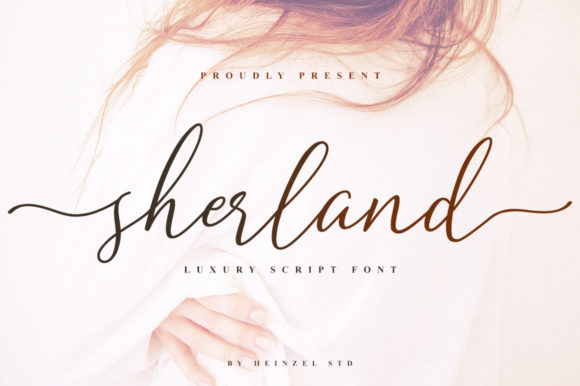
Sherland Font
Unleash the Enchanting Beauty of Sherland Font: A Timeless Script for Every Occasion
Sherland Font – Where Elegance Meets Simplicity
Step into the world of typography and discover Sherland Font, a mesmerizing script font that weaves together timeless elegance with modern sophistication. Designed with meticulous attention to detail, Sherland Font emanates authenticity and charm, making it the perfect choice for crafting exquisite designs that will captivate audiences.
Express Your Creativity with Unparalleled Versatility
With Sherland Font, your creative possibilities are limitless. This versatile font effortlessly adapts to a wide range of design projects, from wedding invitations and stationary art to eye-catching social media posts and heartfelt greeting cards. Let your imagination soar as you explore the endless opportunities that await.
Capture Hearts with Genuine Beauty
Sherland Font possesses an undeniable allure that draws in viewers and leaves a lasting impression. Its graceful curves and sweeping strokes evoke a sense of romance and nostalgia, making it the ideal font for creating designs that resonate with emotions and touch hearts.
Experience the Elegance of Handcrafted Charm
Sherland Font is a true masterpiece, meticulously crafted to embody the essence of handwritten artistry. Each character is infused with a unique personality, seamlessly blending together to create a harmonious and visually stunning design. Experience the beauty of genuine craftsmanship and elevate your designs to new heights.
Create Designs that Shine with Distinction
Whether you're designing for a wedding invitation, a brand logo, or a social media post, Sherland Font has the power to transform your creations into captivating works of art. Its timeless appeal adds a touch of sophistication to any project, ensuring that your designs stand out from the crowd and leave a lasting impact.
Sherland Font – The Perfect Choice for Design Excellence
With Sherland Font, you can unlock a world of creative possibilities and create designs that exude elegance, charm, and authenticity. Immerse yourself in the beauty of its intricate details and let your imagination run wild as you bring your design visions to life. Experience the magic of Sherland Font today and elevate your projects to new heights of visual brilliance!